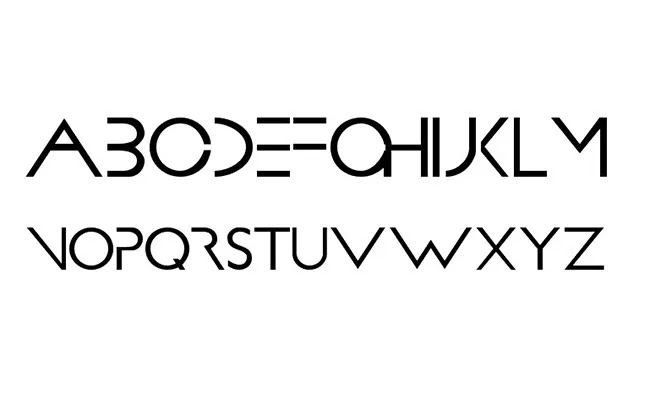
Top 10 Techno Font Families
The Techno fonts are featuring a solid and heavy look. so, those are mostly used for bold headings and banners. In this way, if you find any or more than 2 font families for your tasks then this article is beneficial for you. Because here we are bestowing you to the top 10 Techno Fonts that are perfect in our views.
Jockey One Font Family
Jockey One Font is a sans serif text style that has a marvelous style. A renowned text style foundry TypeTogether took the charge for structuring and discharging it without precedent for 2011.
The fashioner's group from TypeTogether has put a uniform pattern, legitimate edge, and paddings everywhere throughout the typeface. That makes it increasingly capable for features and show use.
That special text style includes the striking surface containing capitalized, lower case letters, and 150 language bolsters. Counting English, African, Yapese, and Zulu.
Because of those highlights, it gets outstanding amongst other typeface accessible. That is underused by an enormous number of planners in their standard gatherings.
Bender Font Family
Bender Font is a sans serif text style that accompanies a thick surface. Mr Oleg Zhuravlev and Gladkikh Ivan are known as the essential architects of this rich text style.
Also, they discharge it by means of Jovanny Lemonad. Every single letter of this text style family has highlighted the show off techno appearance. As like each and every glyph talks about the difficult work of its planners.
Along these lines, the difficult work is truly valued by the specialists when they use it. You perhaps observe it before elsewhere or I think somebody recommends you attempt this marvelous text style for your undertakings.
Prometheus Font Family
Prometheus Font is a techno science fiction text style that including a one of a kind appearance. In the event that you look it carefully, at that point you will see that the principal stroke of certain letters is absent.
This is one of his most recognized characteristics of this techno textual style. A UK based textual style foundry the Spiderays Font took the charge for planning it and discharging it just because on 27 April 2012.
Having a lot of different strokes it's a phenomenal text style for any plan as a reasonable for single pair. Since it's so hard to match with other textual style families.
So we can consider him a sovereign textual style. Since it possesses his character and any place it is utilized it will leave its distinguishing proof. All the letters all through the typeface are so exceptional and uncommon.
Quantico Font Family
Quantico Font is a sans serif textual style that looks so stunning when it utilized for specialized works. An American based text style foundry MADType has taken the charge for planning it and discharging it on 16 Dec 2011.
The MADType is a plan studio of Mr Matthew Desmond. So he turns into the essential planner of this stunning typeface. He took motivation from old brew bundling and military lettering for making it.
The originator has made it right now, techno textual style can utilize 30-degree edges and totally straight lines to frame special character shapes.
Along these lines, it can without much of a stretch flexible in the presentation just as printing ventures. You examine its surfaces in pictures we embedded into this post.
Electrolize Font Family
Electrolize Font is a techno textual style that turned out with humanistic extents. Just because, It was discharged by Gaslight type foundry in 2011.
This foundry is possessed by two partners including Valery Zaveryaev and Roman Shchyukin. Along these lines, they are the essential planners for this rich textual style.
The creator group has taken the motivation from a Russian passenger train. In this manner, it highlights the strong enough to function admirably in any size from passages to features.
This brilliant textual style has awesome intelligibility all through the typeface. Which you can see profoundly when you notice it in pictures.
Prolamina Font Family
Prolamina Font is a techno textual style in light of its strong look. A Mexican text style creator Mr Alejandro Cabrera Avila took the charge for structuring it during January 2010.
What's more, discharging it by means of his sort foundry name as CabreraTypo. He has included something new configuration with overwhelming strokes that prompts that text style onto an expert level.
Right now, tremendous populace from structuring fields needs to work alongside that. Furthermore, some of them previously using its administrations into their variable undertakings.
Because of that unassuming typeface bolsters an ideal surface. What's more, tries to pass on high-grade neatness and preeminent immovability. As indicated by its one of a kind current look, it is ideal for predominant content mixing.